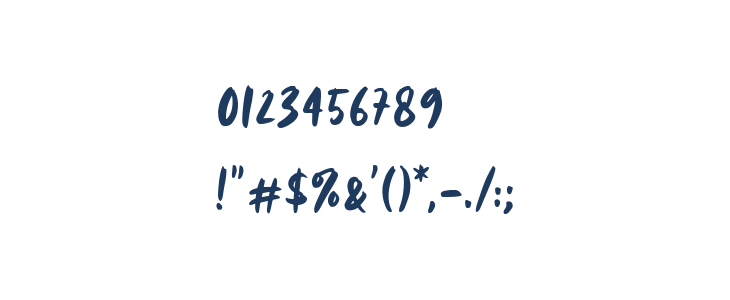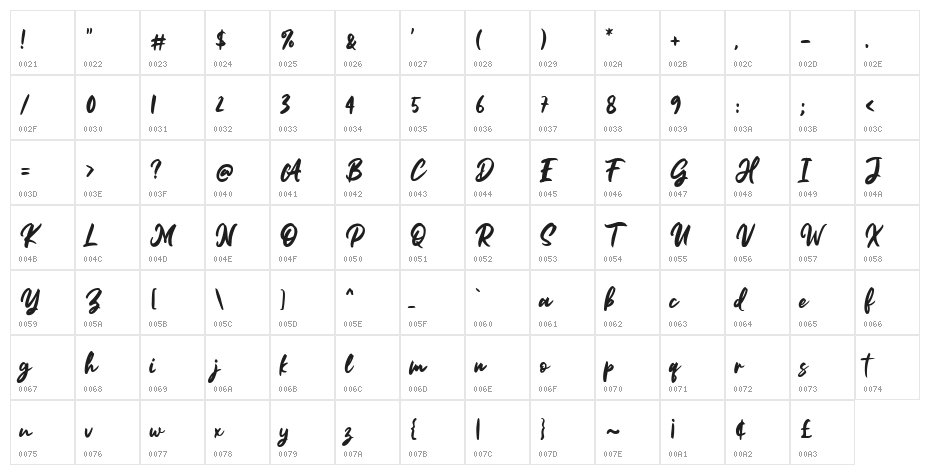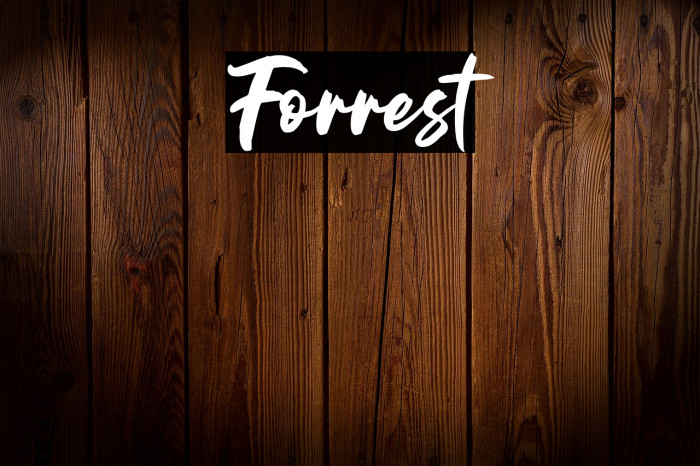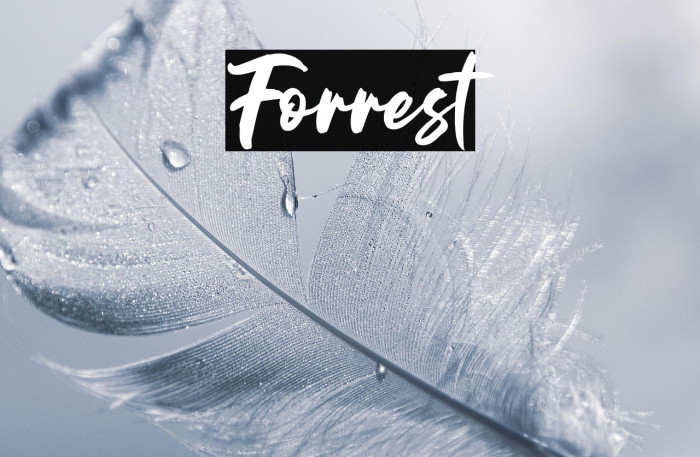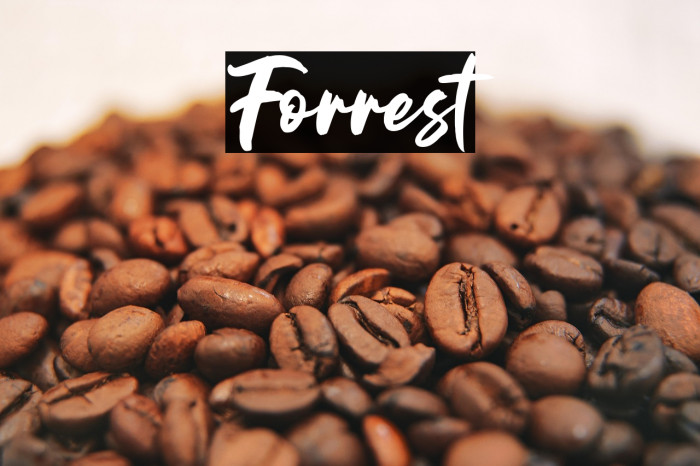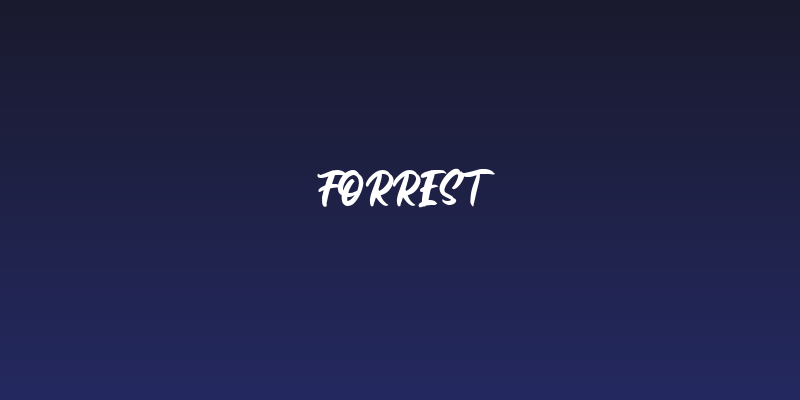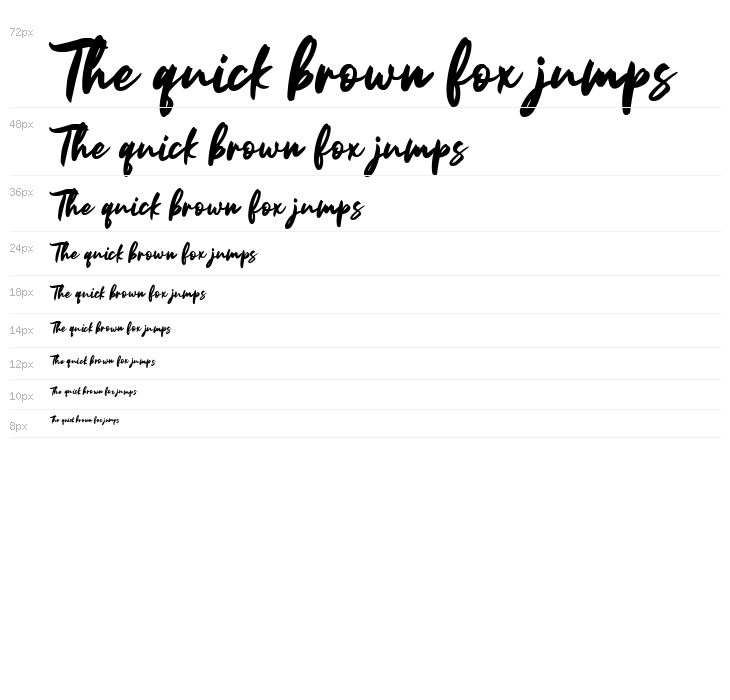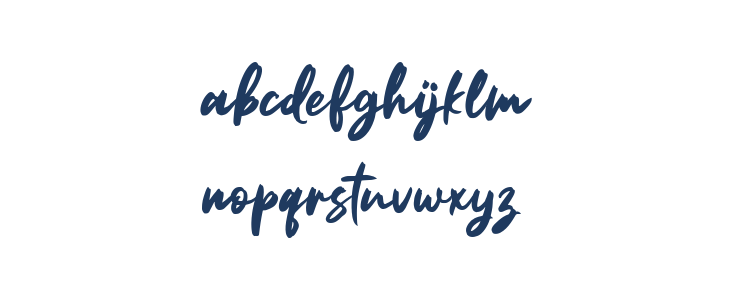
Forrest Font
Forrest Description
This font features a bold, expressive script style with a handwritten appearance. The letters are connected, creating a fluid and dynamic look. The strokes are thick and consistent, giving the font a strong presence. The uppercase letters are slightly larger and more pronounced, while the lowercase letters maintain a cohesive flow. Numbers and special characters are designed to match the overall style, ensuring uniformity across all text elements. This font exudes a sense of creativity and personal touch, making it ideal for projects that require a humanistic and artistic feel.
| Use Case | Logos, Headlines, Creative projects |
| Proposed Projects | Ideal for branding, invitations, greeting cards, and creative projects that require a personal touch. |